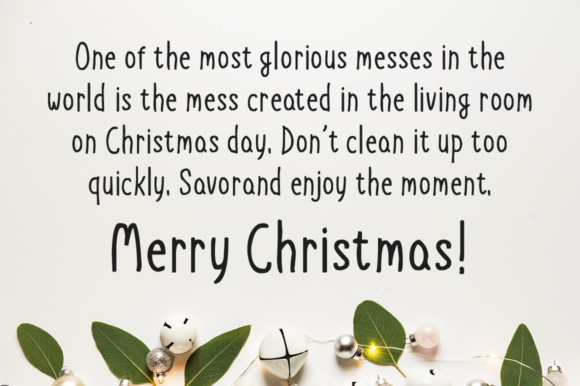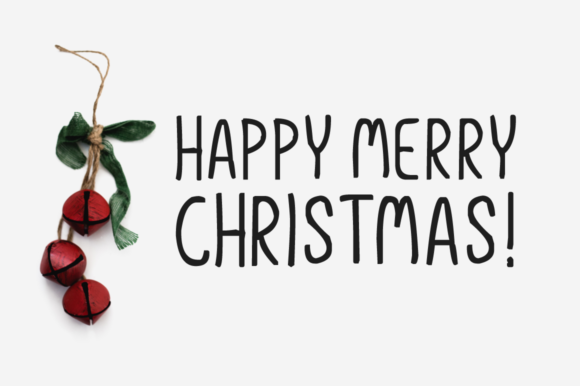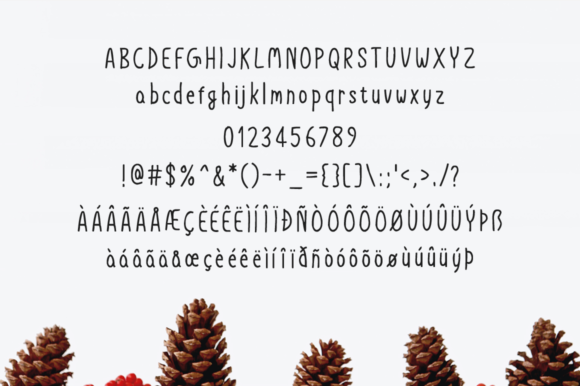
Introduction to Epic Christmas Font
Epic Christmas is a charming and beautiful handwritten font with a unique style.
Get inspired by its Holiday charm .
Key Features of Epic Christmas Font
Why Choose Epic Christmas Font?
Epic Christmas Font offers exceptional quality and versatility, making it a valuable addition to your design toolkit. Whether you’re creating for personal projects or commercial use, Epic Christmas Font delivers professional results.